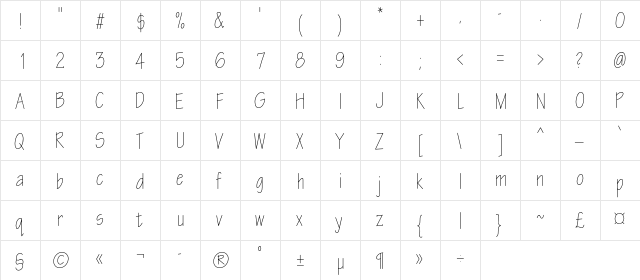
EskizTwoLightCondC Regular Font Preview
EskizTwoLightCondC Regular
Design Context for EskizTwoLightCondC Typeface
EskizTwoLightCondC takes a measured approach to typography — its balanced proportions and neutral character make it a reliable workhorse for both digital and print work. Its slender proportions lend an understated elegance to any composition. The condensed width makes it efficient for tight spaces without sacrificing legibility.